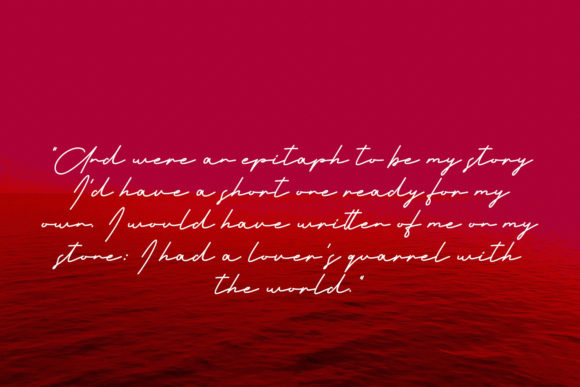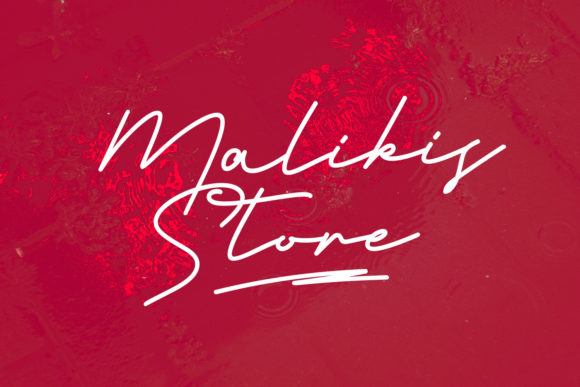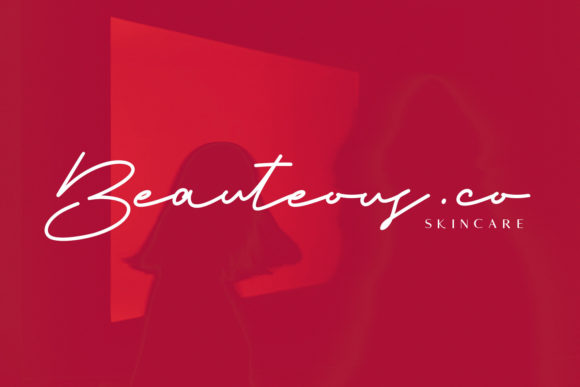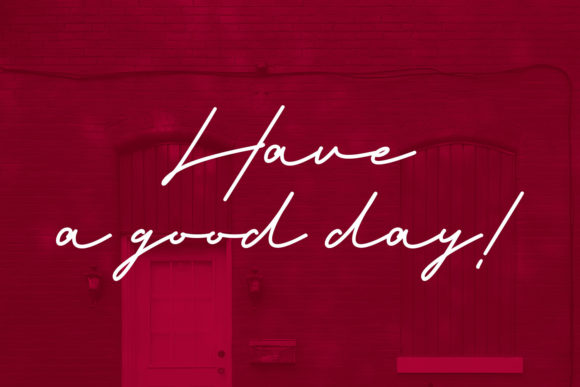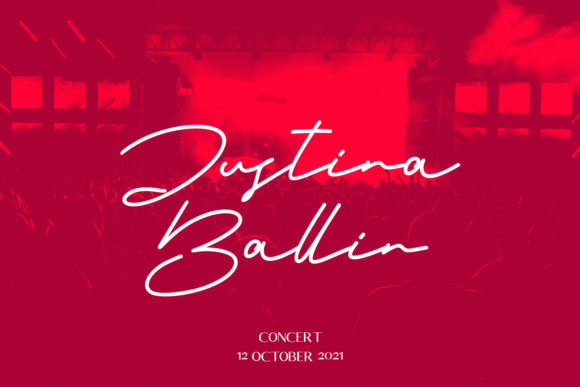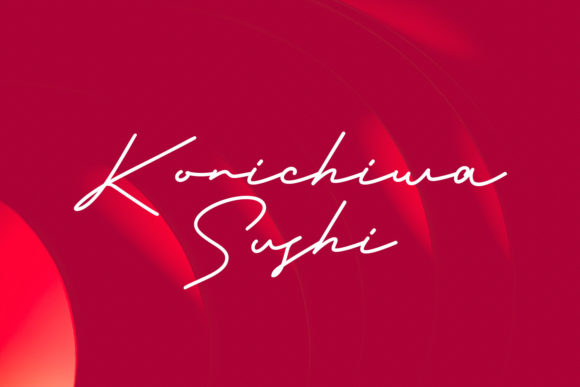
Introduction to Red Bells Font
Have you ever found yourself staring at a blank page, struggling to bring your creative vision to life? The blank slate can be intimidating, but what if you had the perfect design tool to make your ideas shine? For designers, discovering a new font can be a game-changer, and that’s exactly what the Red Bells Font offers.
With its thin lettered and stylish script design, the Red Bells Font is a treasure trove of creative possibilities. Whether you’re crafting a romantic wedding invitation, designing beautiful stationery art, or creating eye-catching social media posts, this versatile font is sure to elevate your project to new heights. And the best part? It’s a free download, making it an accessible design resource for creatives of all levels.
Imagine being able to add a touch of elegance and sophistication to your work with just a few clicks. The Red Bells Font makes it easy to achieve a high-quality design that’s perfect for any creative project, from digital art to print materials. With its transparent background and sleek design, you can create stunning visuals that will leave a lasting impression on your audience.
Key Features of Red Bells Font
- High-quality, unique design suitable for various creative projects.
- Comes with a transparent background, allowing for flexibility in design.
- Perfect for designers looking for a distinctive, high-quality font for their next creative project.
Honest Review: Red Bells Font
I recently stumbled upon the Red Bells Font while searching for a design resource to add some flair to a creative project. I was immediately drawn to its unique, hand-drawn style and decided to give it a try.
Here are some pros and cons of using the Red Bells Font:
- ✨ High-quality, professional-looking design that’s perfect for creative projects
- ✨ Transparent background, making it easy to use on any design surface
- ⚠️ Limited font sizes and styles, which may not be suitable for complex designs
- ⚠️ Some letters may not be compatible with certain font sizes or styles, resulting in inconsistent spacing
Overall, I think the Red Bells Font is a great addition to any designer’s toolkit. While it may have some limitations, its unique style and high-quality design make it a worthwhile resource for creative projects. Just be aware of its limitations and adjust your design accordingly.
Tips for Getting the Most Out of Red Bells Font
Experiment with different font sizes, colors, and styles to create unique and visually appealing designs. Combine Red Bells Font with other design elements, such as graphics and images, to add depth and interest to your creative project.
The Red Bells Font is ideal for designing invitations, brochures, and social media graphics. Its high-quality design and transparent background make it perfect for creating eye-catching and professional-looking designs for your creative project.